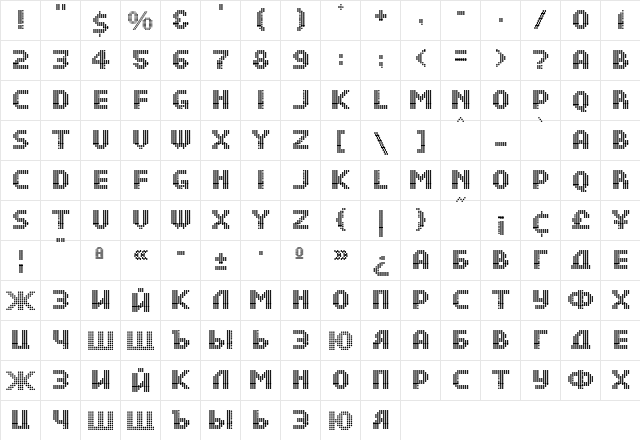
DS Dots Medium
| Designer | Dubina Nikolay |
Design Context for DS Dots Typeface
DS Dots is rooted in pixel-grid construction, making it a natural fit for game UI, retro computing aesthetics, and digital nostalgia projects.
A natural choice for retro game titles, chiptune music branding, 8-bit UI, and digital nostalgia projects.